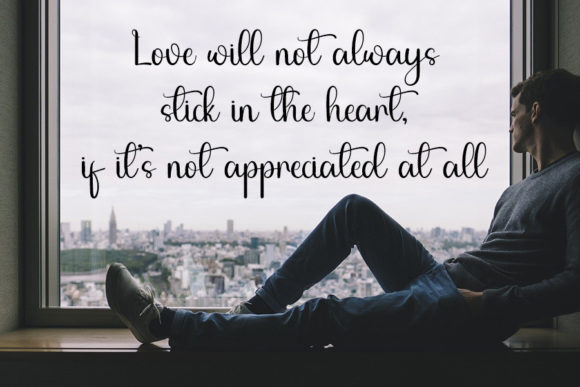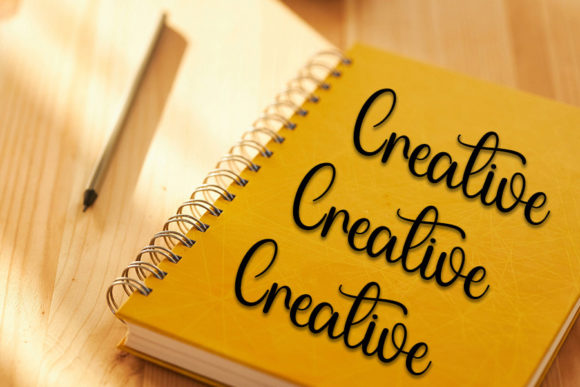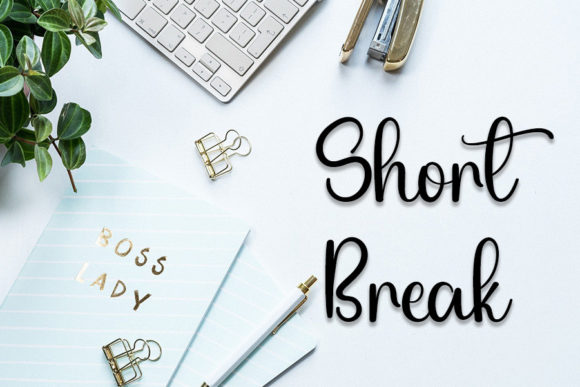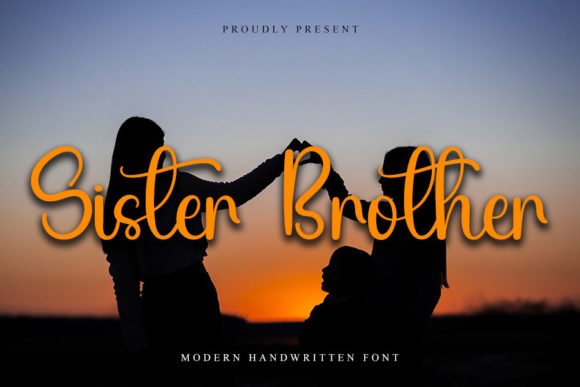
Introduction to Sister Brother Font
Sister Brother is a stylish handwritten font with a contemporary atmosphere and impeccable form, inspired by a timeless classic calligraphy.
Not too thin and not too thick, balanced and varied, this font was designed to enhance the beauty of your projects .